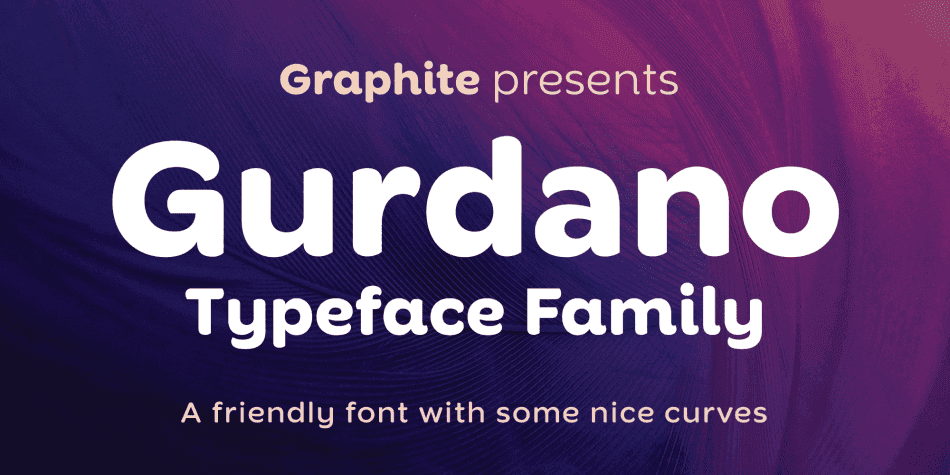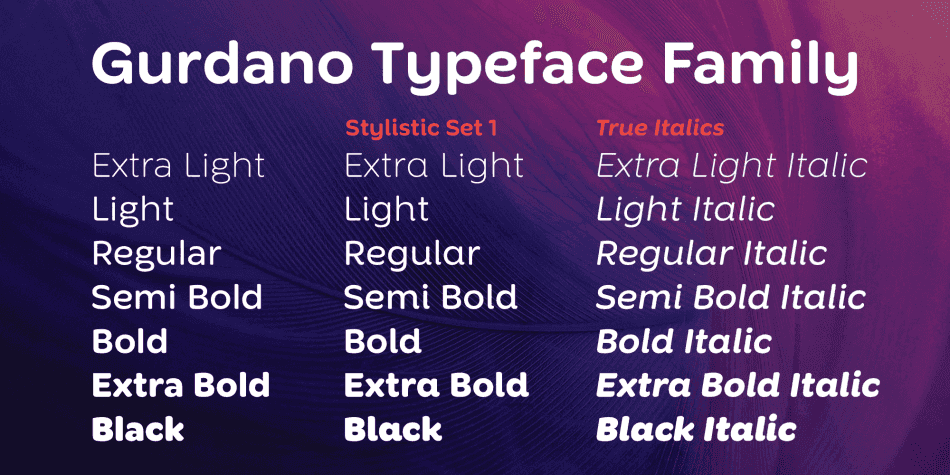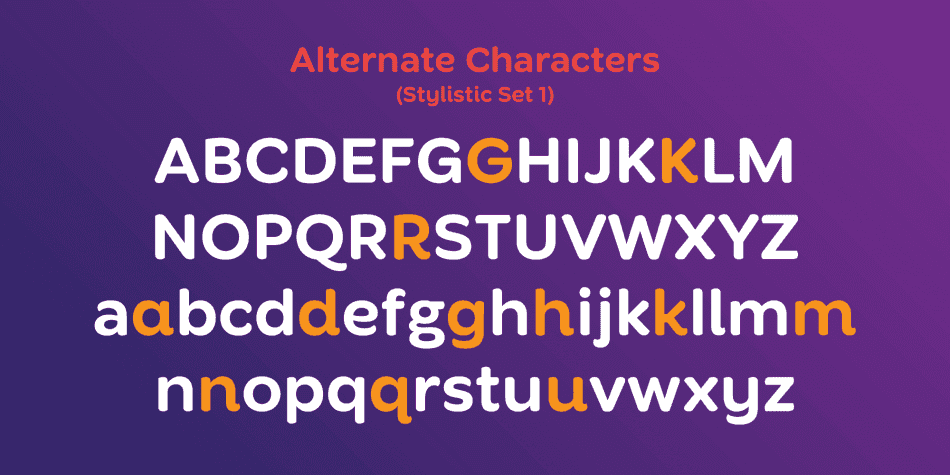
Gurdano is a sans serif font family designed for display and text usage across any medium and environment, regardless of size. Boasting an eye-catching geometrical design with an engaging appearance, Gurdano makes an ideal choice for headlines, logotypes, branding packages, publications, signs billboards posters and other signs.